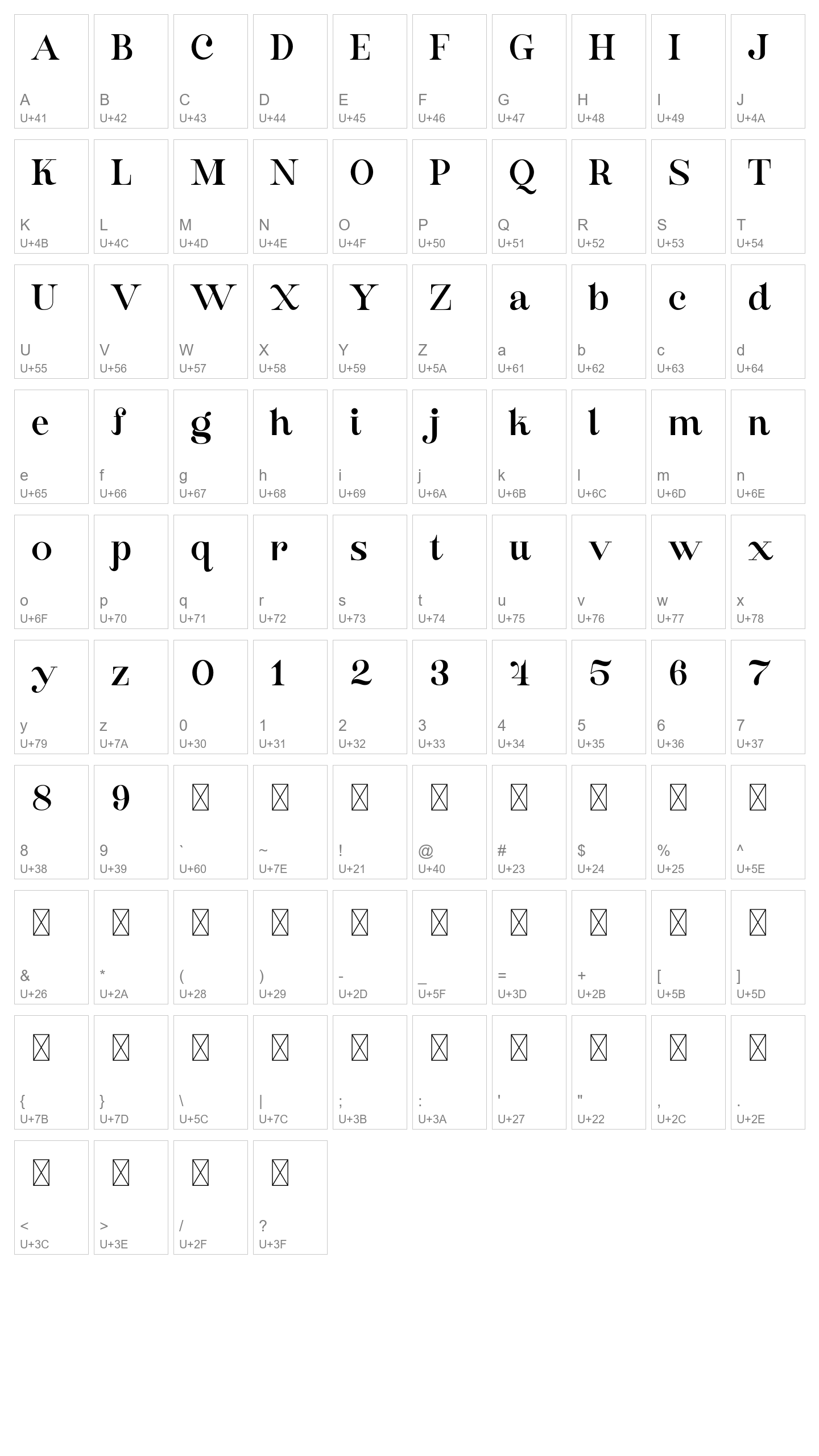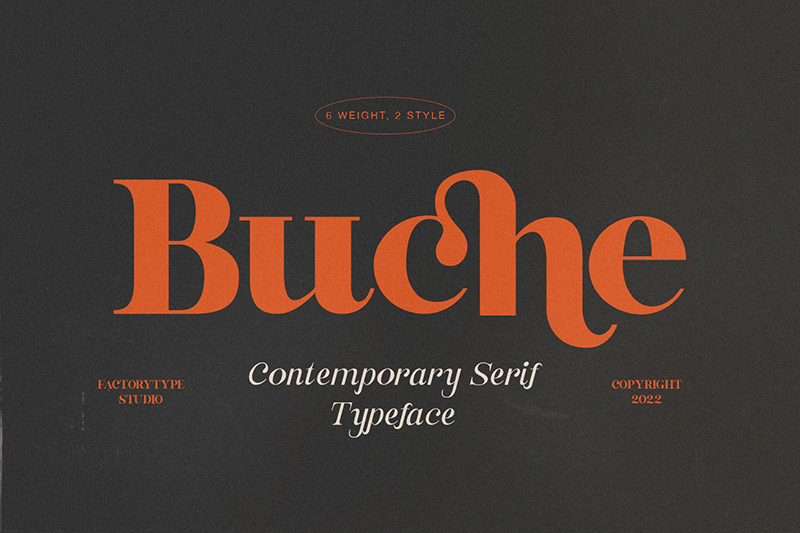
Buche
Discover the perfect font for your logo and brand design Buche! With FREE DOWNLOAD and its curvy, contemporary style, this serif font is perfect for unleashing your imagination. And the best part Buche has eye-catching look! So why wait? Download yours now for FREE!